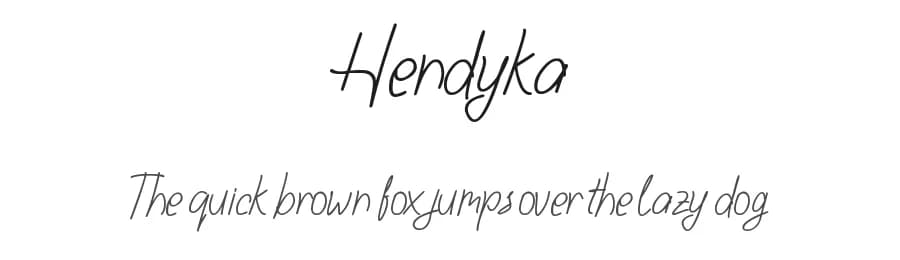
About Hendyka Font
Hendyka is a script & handwritten font designed by Miftah Locare. It includes 113 glyphs, a regular weight, TTF (TrueType) format, and 107 languages. Hendyka is free to download; check the license details on this page before commercial use. Script & handwritten fonts like Hendyka work best for wedding invitations, greeting cards, signatures, and elegant branding.
Hendyka Font is a script font that shines as a display or heading face. Pair it with a clean sans-serif or serif font for body text β the contrast creates a clear hierarchy while the two styles stay balanced and easy to read.
Hendyka Font